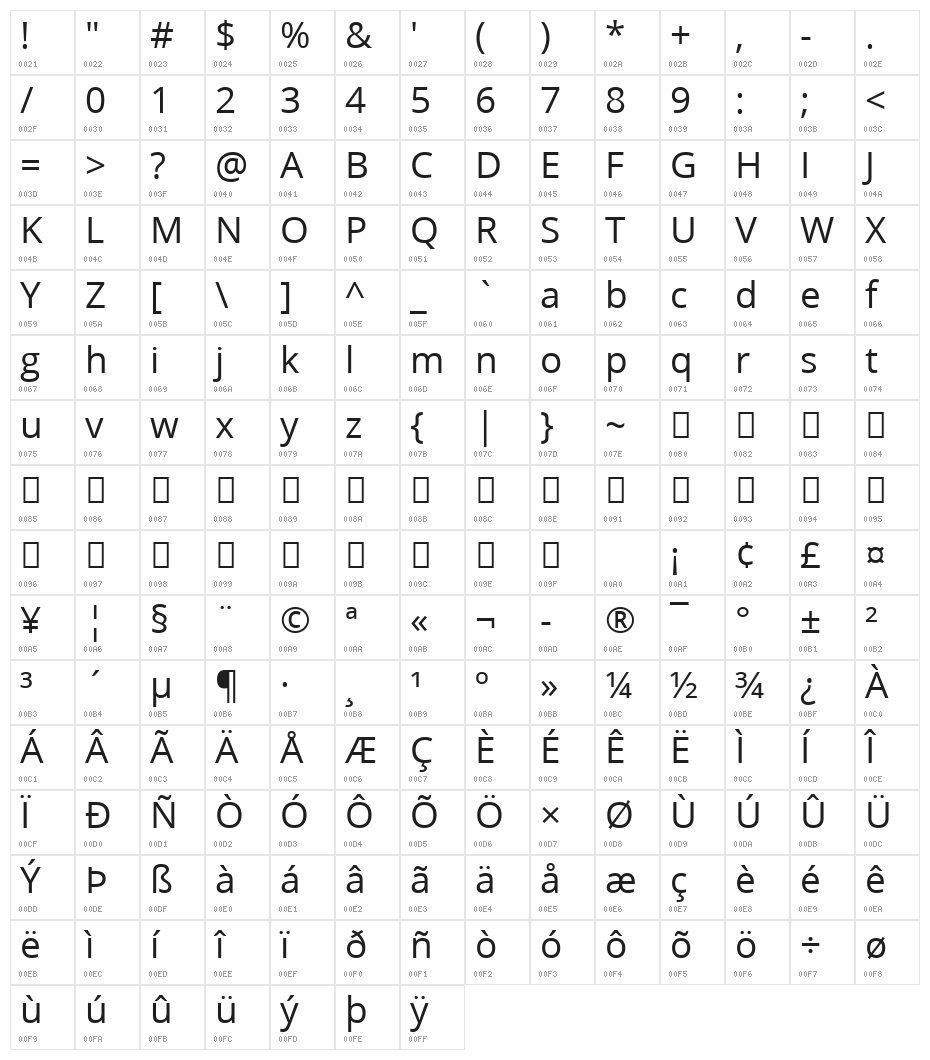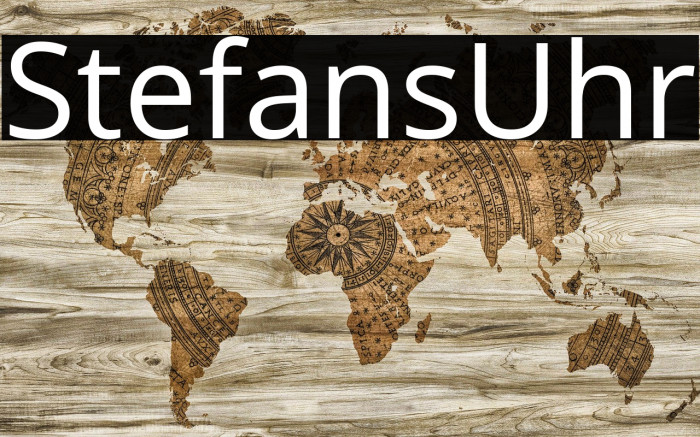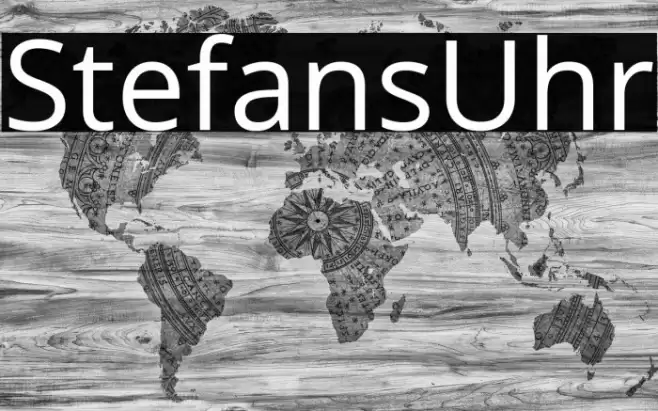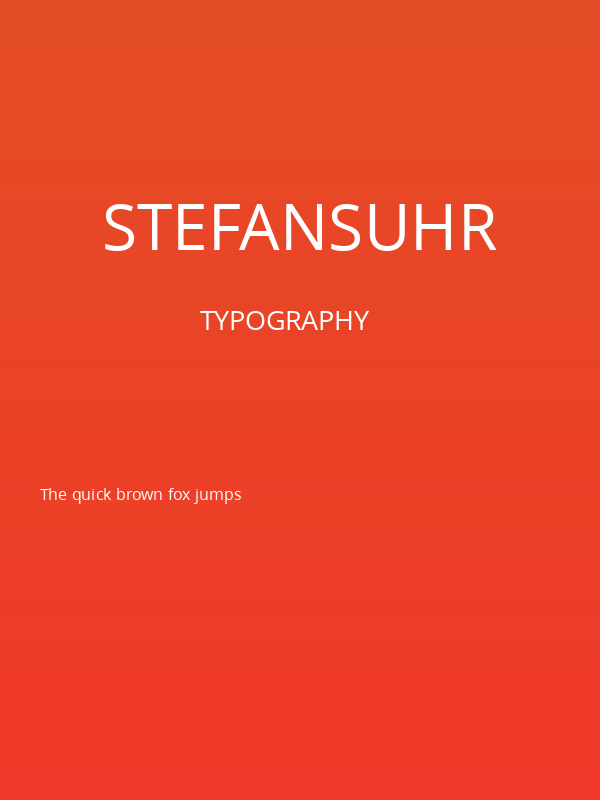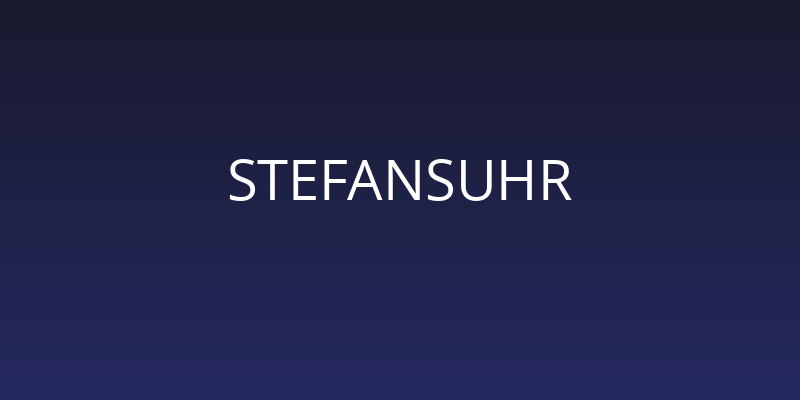
StefansUhr Font
StefansUhr Description
This font features a clean and modern sans-serif design, characterized by its simplicity and readability. The letters are evenly spaced with a consistent stroke width, providing a balanced and harmonious appearance. The uppercase and lowercase letters are well-proportioned, making it suitable for both display and body text. The numerals are clear and distinct, ensuring legibility in various contexts. The special characters are straightforward and integrate seamlessly with the overall style, enhancing its versatility for different design needs.